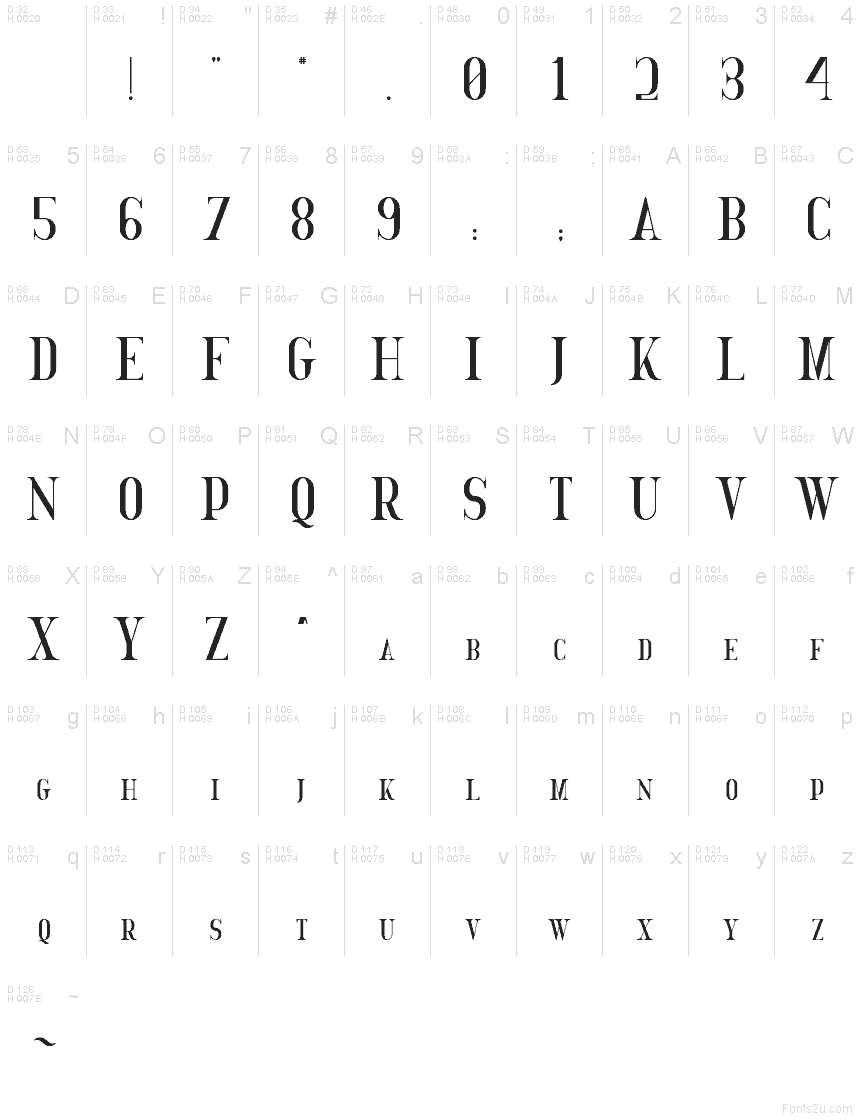
GoldenBird Down
GoldenBird Down font is a free serif font from VPcreativeshop, featuring a condensed design and an elegant classic appearance. Sophistication and historical influences are distinctive attributes brought upfront with the use of refined decorative elements within its characters.
There are plenty of use domains where GoldenBird Down can shine: fashion branding, food or drink packaging, book covers, logos, or web elements.